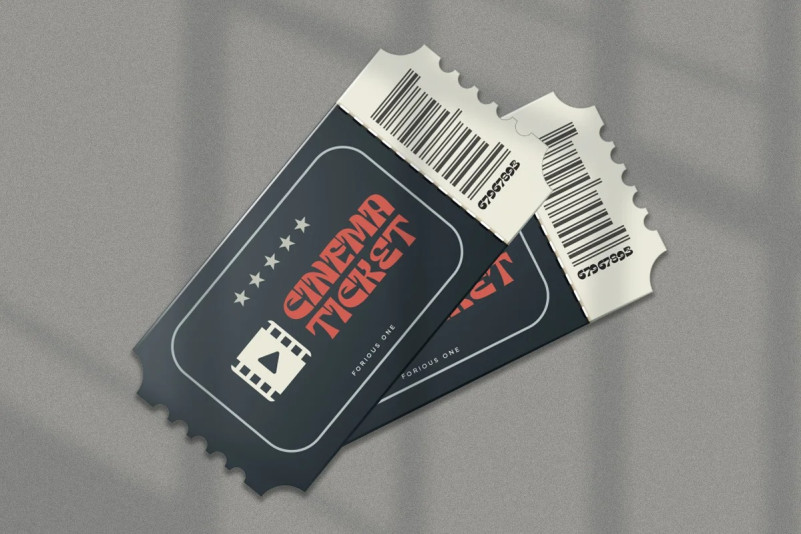
Growvokia Font
Growvokia Display Font is a groovy display character inspired by retro and vintage style. Its optimum legibility, clean, and geometric look is perfect branding, brochures, greeting cards, quotes, posters, stationary, design titles, blog headers, and much more.